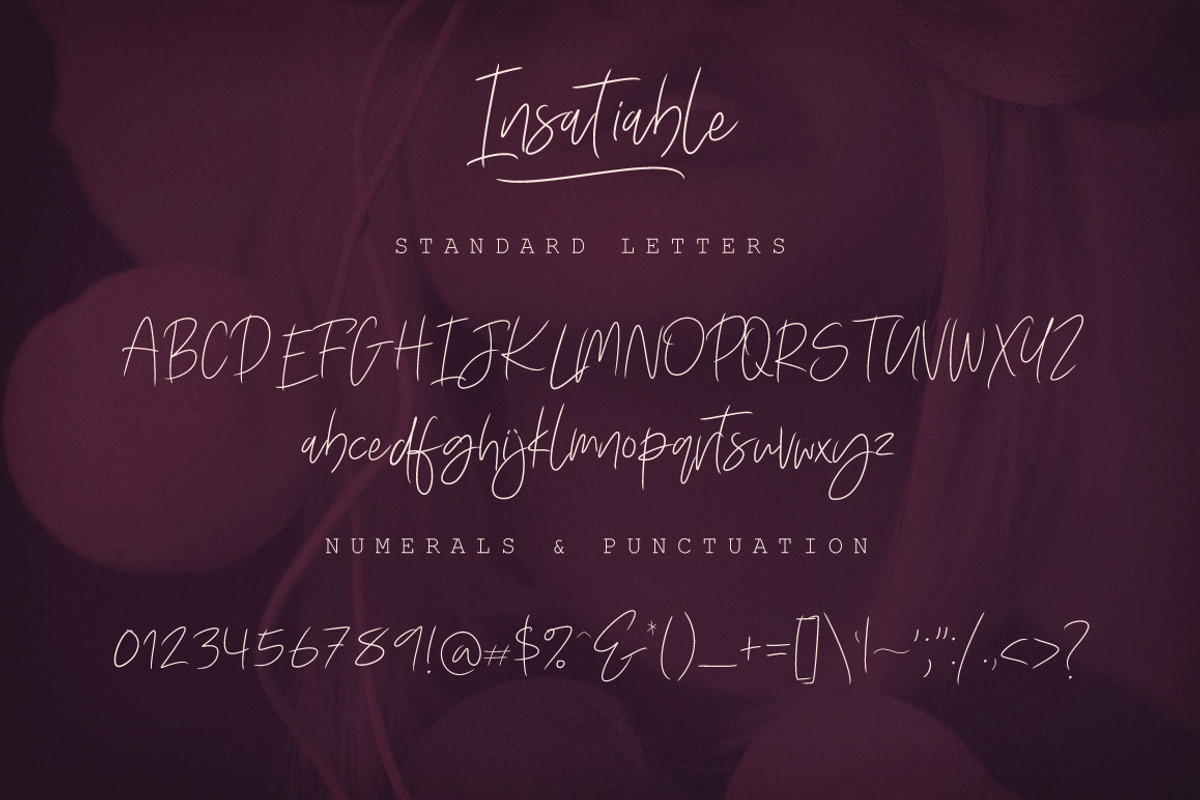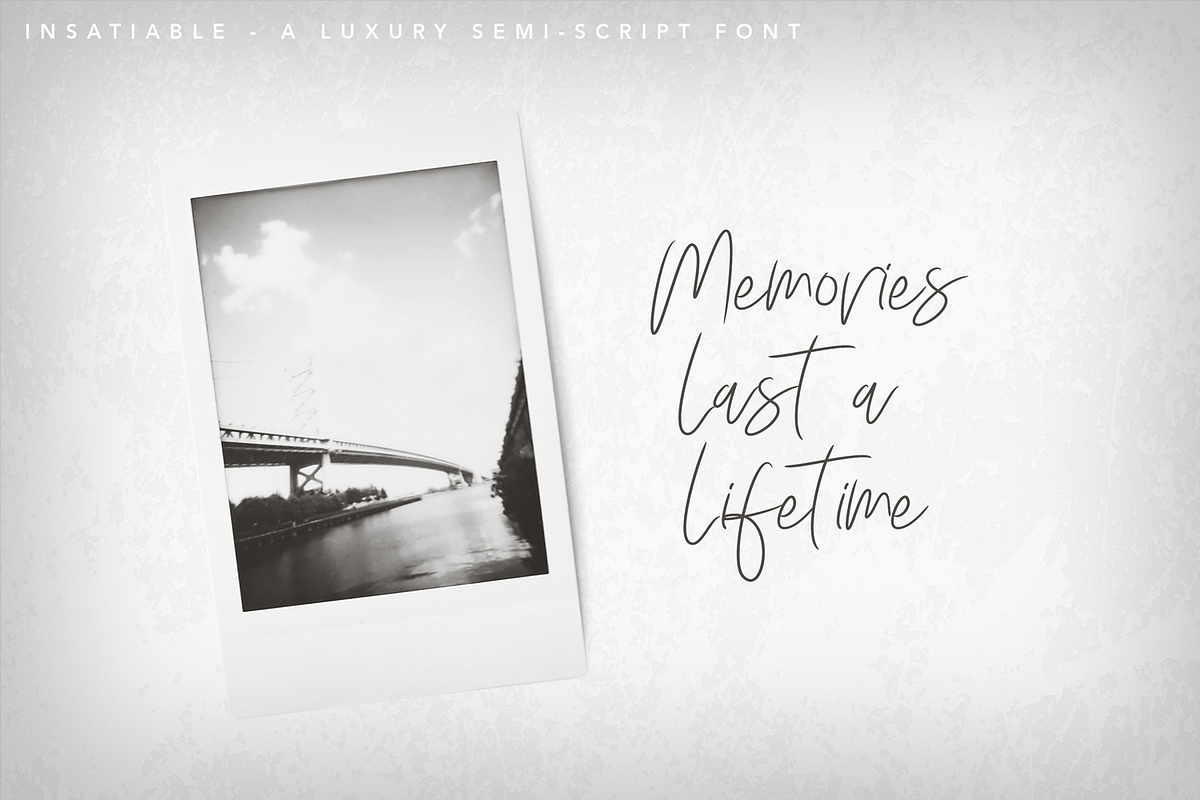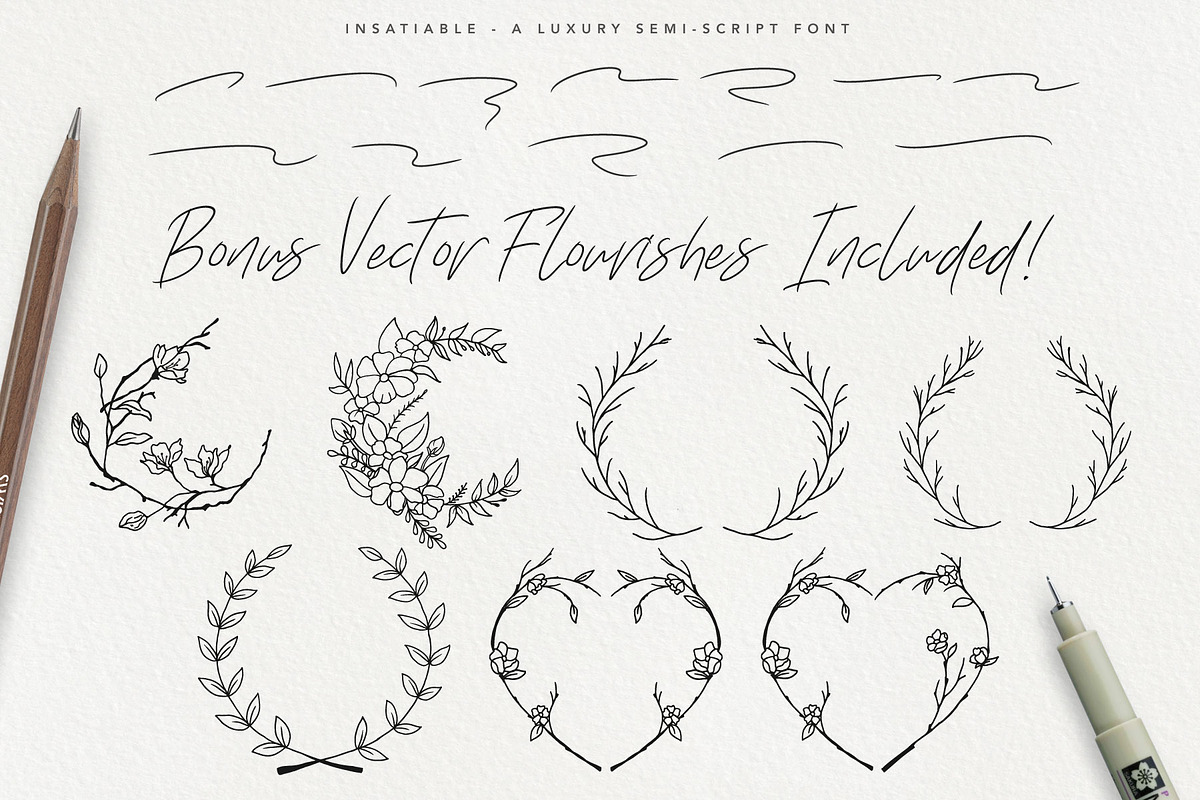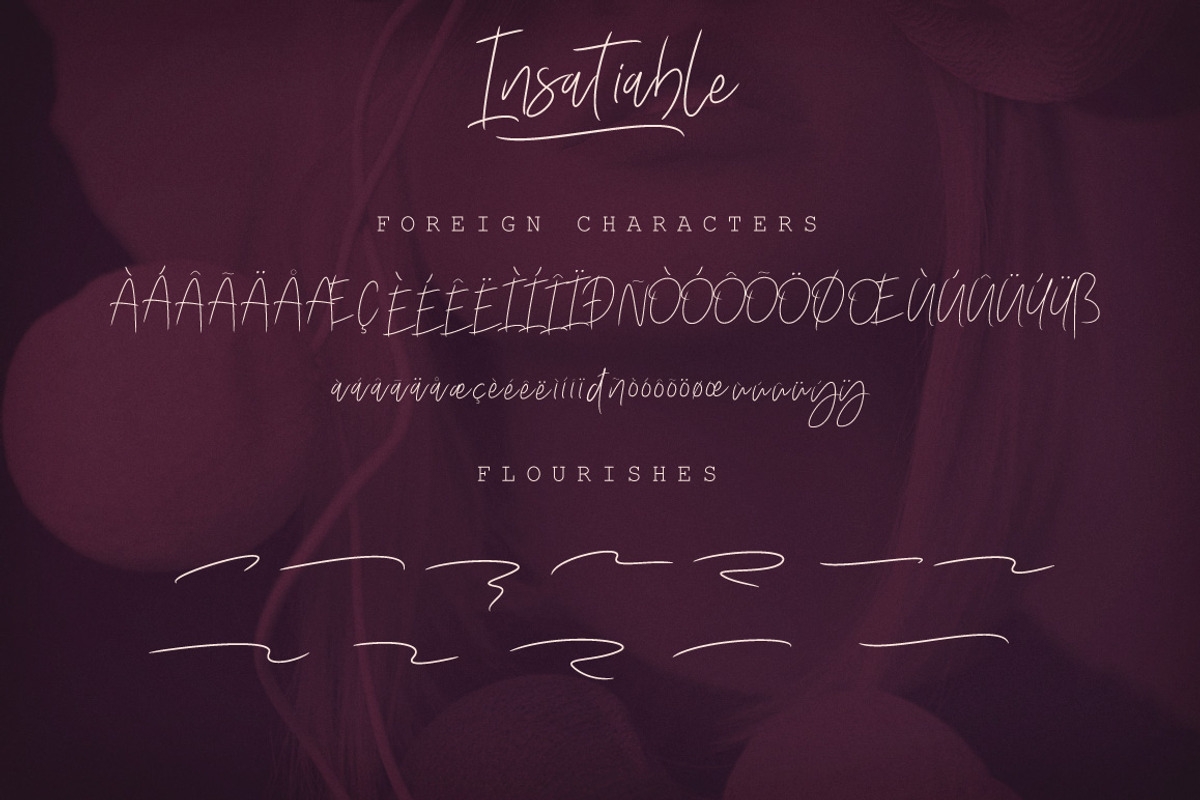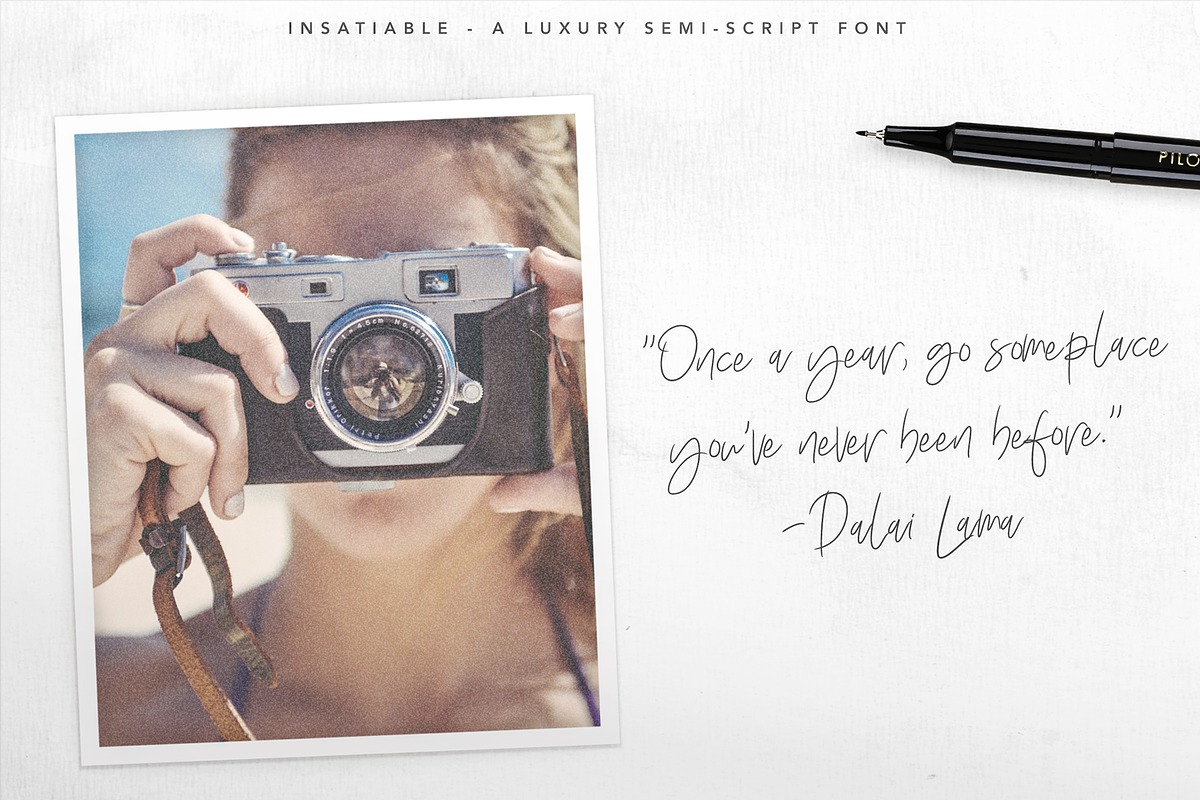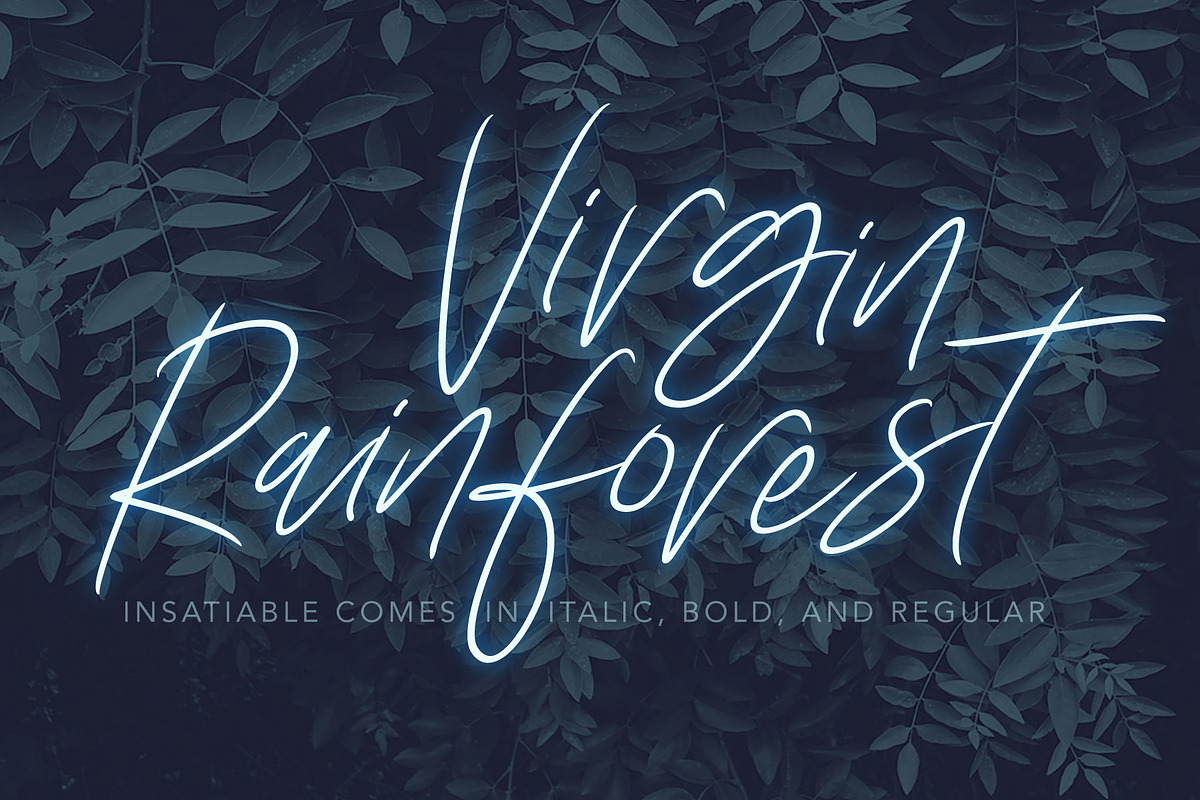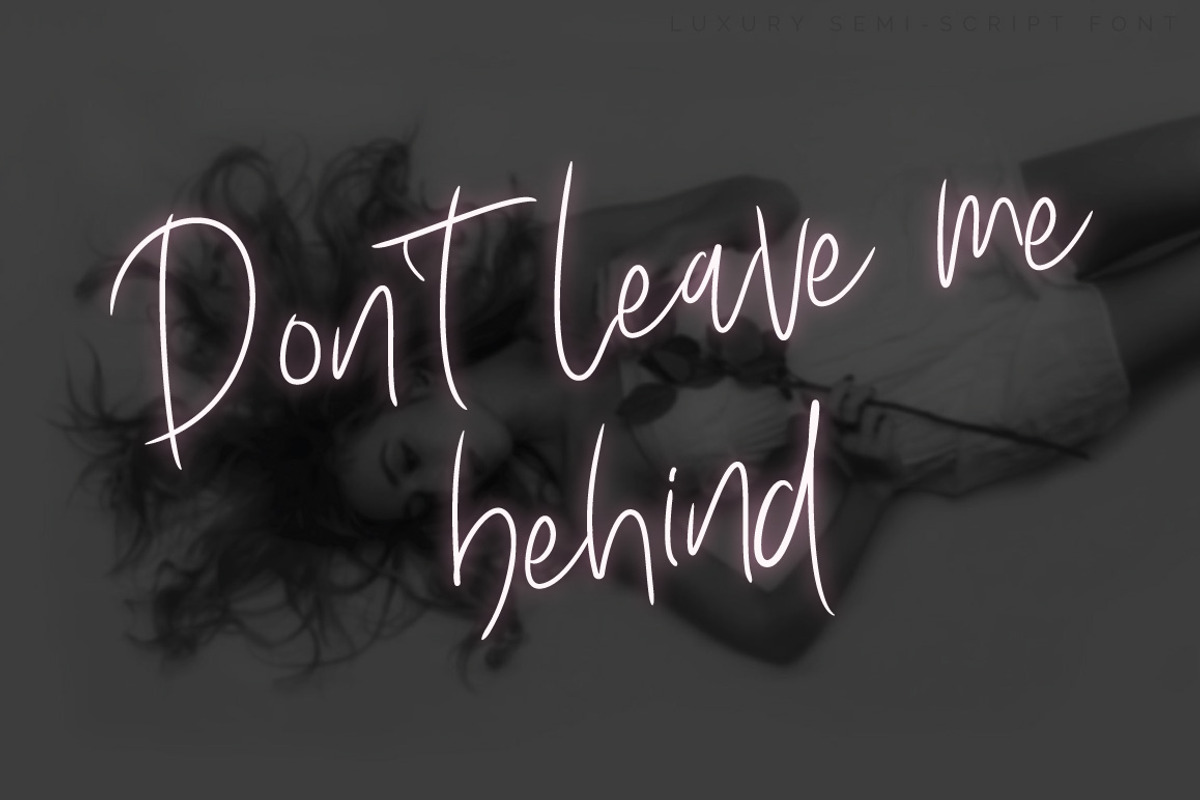
Insatiable Script Font
Introducing the new Insatiable Script Font - A fashionable and super-chilled new handwriting font script with some handmade stylish extras :)
Insatiable Script Font was created to look as close to a natural handwritten script as possible.
Multilingual Support is included for the following languages: Cornish, Danish, English, Estonian, Faroese, Filipino, Finnish, French, Friulian, Galician, German (Switzerland), Gusii, Icelandic, Indonesian, Irish, Italian, Kabuverdianu, Kalenjin, Kinyarwanda, Luo, Luxembourgish,Norwegian Bokmål, Norwegian Nynorsk, Portuguese, Romansh, Scottish Gaelic, Spanish, Swedish, Swiss German.
- 7 Hanndmade Wreath ( Freebies )
- 12 Flourishes
Insatiable Script Font by Digital Hustler fits naturally into Branding, posters, packaging, typography.